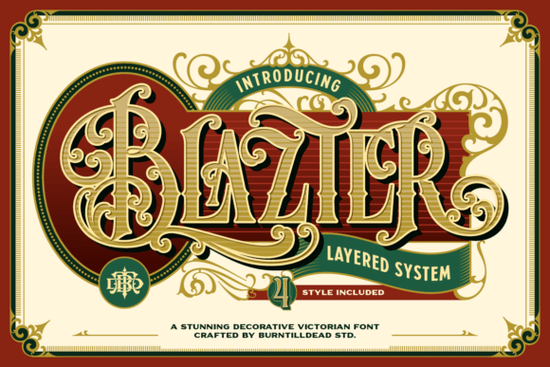
Blazter Font is a unique typeface that brings a touch of old-world elegance to modern design projects. If you're looking for a way to add vintage flair and sophistication to your work, this font could be just what you need. Its intricate details and layered structure make it ideal for a wide range of creative applications, from branding to packaging and everything in between.
Designed with a layered system, Blazter allows users to create typography that stands out. This feature makes it easy to experiment with depth and dimension, giving your designs a more dynamic feel. Whether you're aiming for a classic gold engraving look or something more bold and retro, this font offers the flexibility to achieve your vision.
For those who enjoy working with vintage-inspired designs, Blazter provides a strong foundation. The font’s ornamental elements and swashes are reminiscent of 19th-century typography, making it a great choice for anything with a historical or nostalgic theme. It can be used in everything from wedding invitations to book covers and product labels.
If you're a small business owner or a print-on-demand seller, adding Blazter to your toolkit can help you create more eye-catching visuals. It’s especially useful when designing logos, banners, or promotional materials that need to stand out. The font’s versatility means it can work well in both digital and physical formats.
Designers often look for fonts that offer both style and functionality. Blazter delivers on both fronts, providing a high level of detail without compromising readability. Its layered system also makes it easier to adjust and customize, which is a big plus for those who want to fine-tune their designs.
When choosing a font, it’s important to consider how it will fit into your overall design aesthetic. Blazter is perfect for anyone who wants to add a touch of luxury and heritage to their work. It’s not just a font it’s a tool that can help you express your creative vision more effectively.
Before you start using Blazter, take some time to experiment with different styles and layouts. This will help you understand how the font works best in various situations. You might also want to pair it with other fonts to see how they complement each other.
Here’s a quick checklist to keep in mind when working with Blazter Font:
- Test the font in different sizes and formats.
- Experiment with layering options for depth and dimension.
- Pair it with complementary fonts for balance.
- Ensure it remains readable in both digital and print mediums.
By taking these steps, you can make the most of Blazter’s unique features and create designs that truly stand out. Whether you're working on a personal project or a client’s request, this font can help you achieve a professional and polished look.